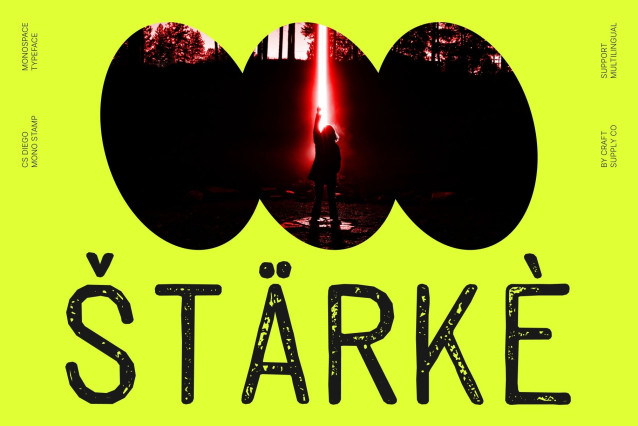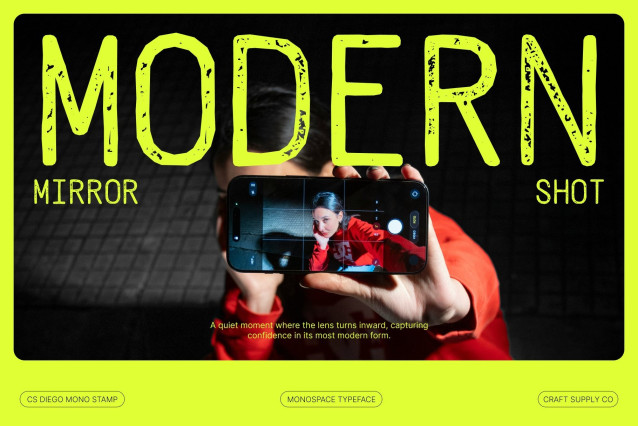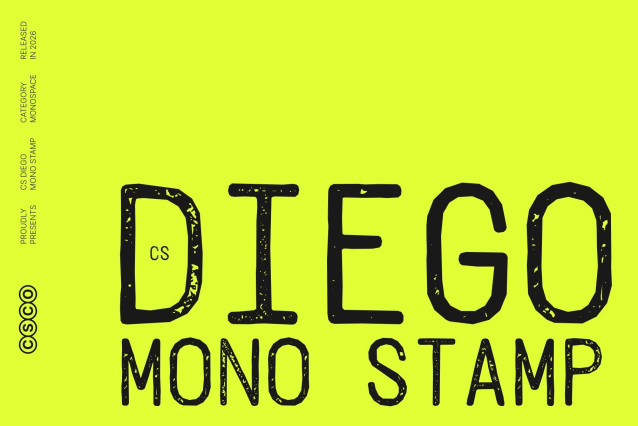
Diego Mono Stamp Font
CS Diego Mono Stamp – Monospace Sans Serif with Vintage Tech Character
Modern Monospace with a Stamped Personality
This is a modern monospace sans-serif typeface designed for clarity, precision, and technical readability. With its consistent character width and structured forms, the font ensures clean alignment while the stamp effect introduces a subtle distressed texture that adds vintage charm and personality.
Consistent Character Width for Perfect Alignment
The monospace structure ensures every character occupies the same horizontal space, making it ideal for coding, terminal interfaces, UI mockups, and technical layouts. This uniform spacing preserves formatting and enhances scanning, helping code and structured text remain neat and easy to follow.
Clean Sans-Serif Meets Retro Texture
Its clean sans-serif design keeps letterforms simple and highly legible, even at small sizes or on low-resolution screens. The stamped texture softens the digital precision with a lightly worn, printed feel bringing warmth and visual interest without sacrificing clarity.
Ideal for Coding, Tech Branding, and Editorial Use
Perfect for programming environments, technical documentation, developer branding, posters, or editorial layouts, this font bridges modern functionality with retro character. It’s a typeface that feels both precise and human combining technical efficiency with timeless stamped aesthetics.